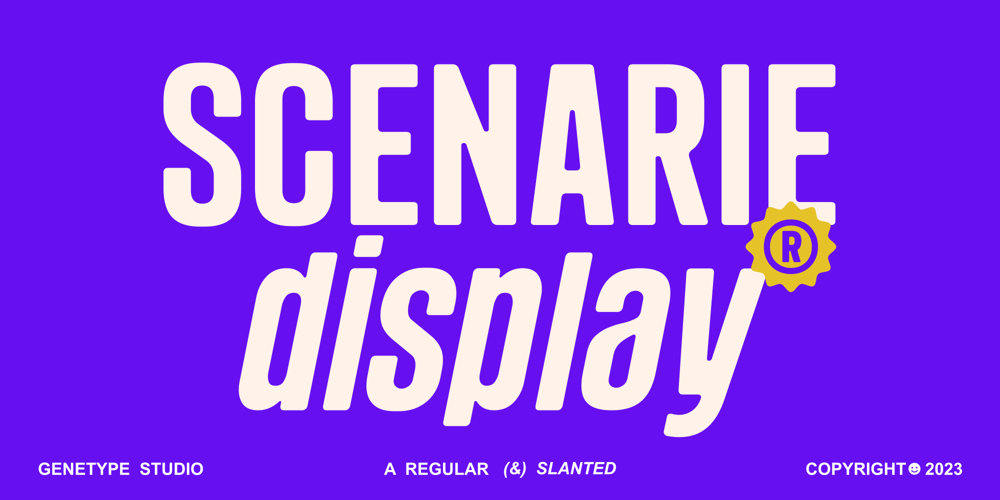
Scenarie
Scenarie font
Scenarie Font Family was designed by Bagus Arya and published by Genetype. Scenarie contains 2 styles and family package options. Introducing Scenarie Display Typeface: Streamlined Elegance RedefinedUnveil the art of sophistication with Scenarie Display – a condensed sans serif font meticulously designed to streamline your designs. From sleek logos to space-efficient layouts, Scenarie Display offers a modern and refined touch. Embrace the power of condensed typographyEnjoy the font, feel free to comment or feedback, send me PM or email.Thank you!